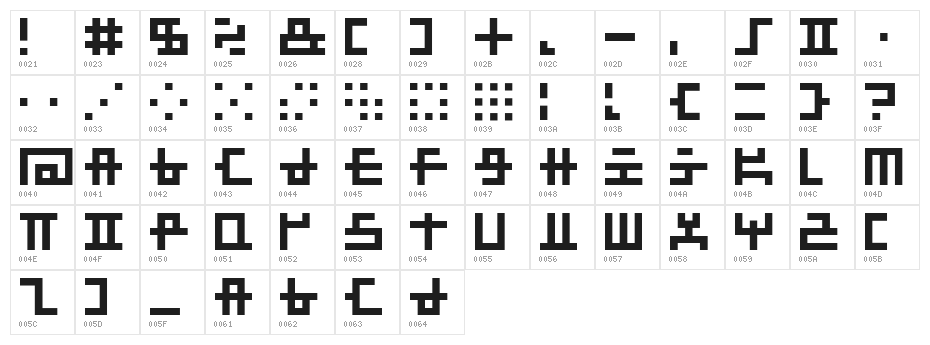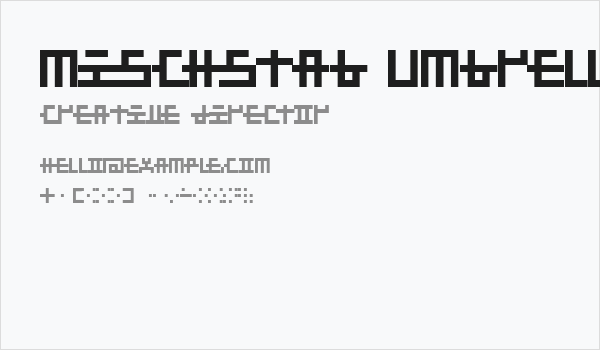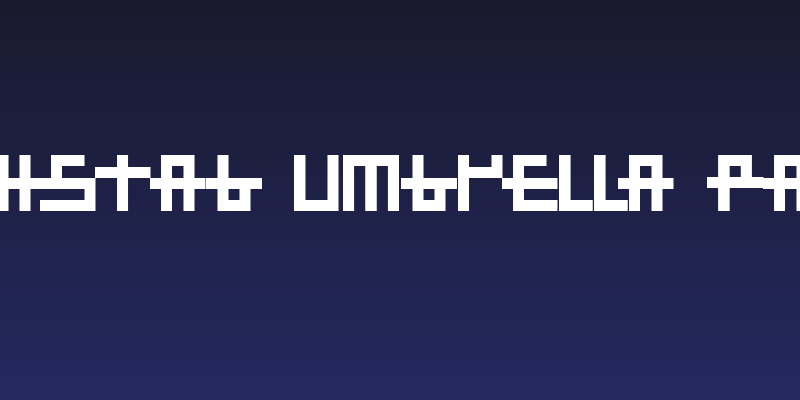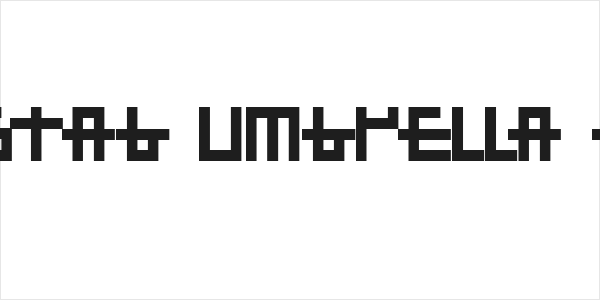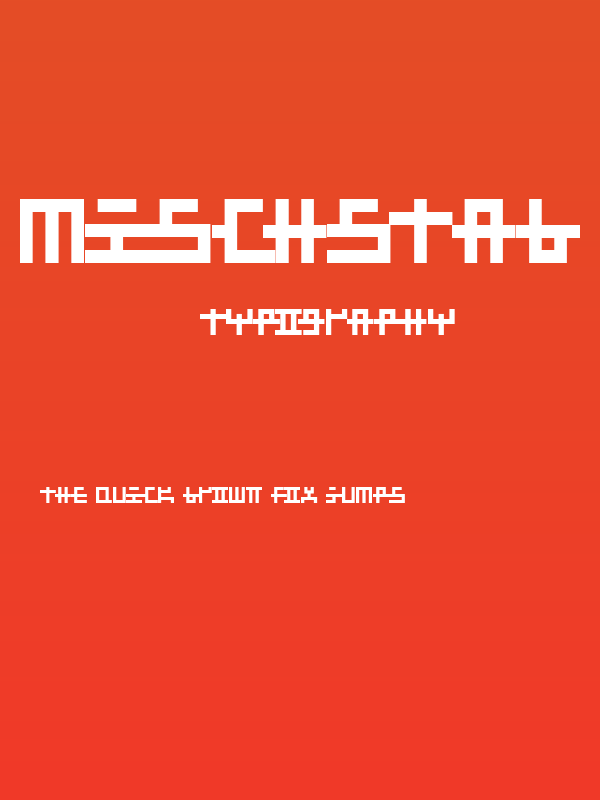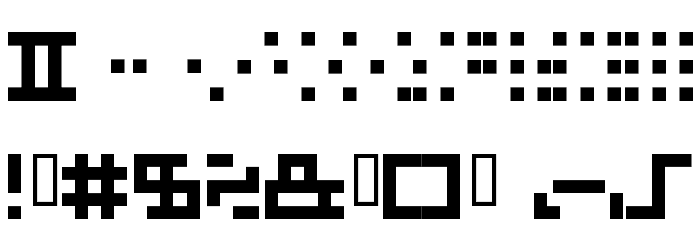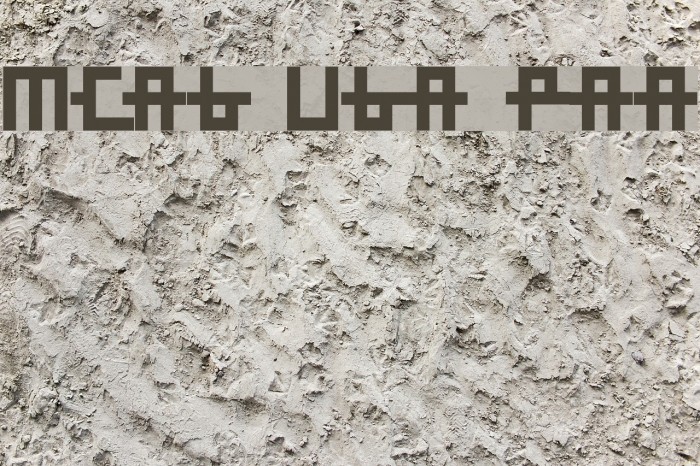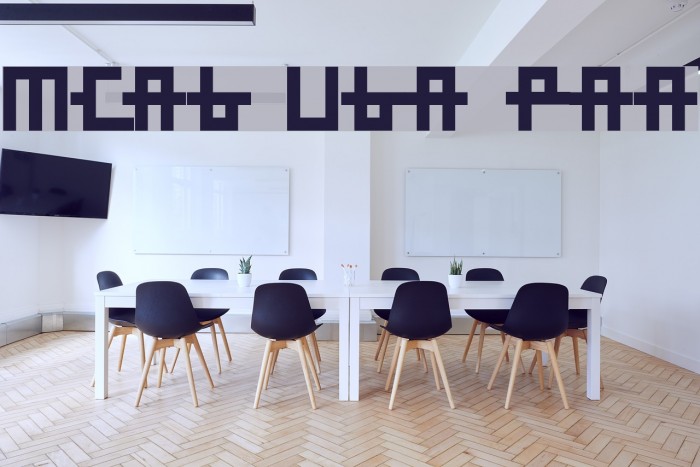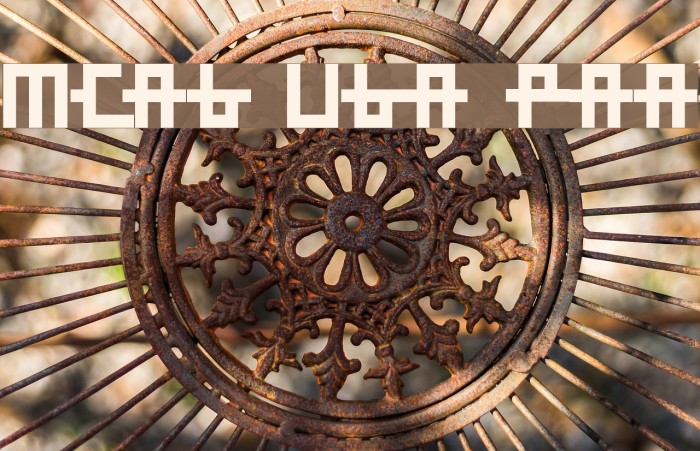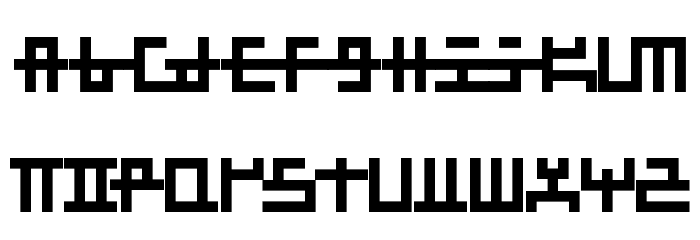
Mischstab Umbrella Patina Font
Mischstab Umbrella Patina Description
This font features a bold, geometric design with a distinct pixelated appearance. Each character is constructed with a grid-like structure, giving it a digital, retro aesthetic reminiscent of early computer graphics or arcade games. The uniformity in stroke width across all characters contributes to a cohesive and structured look. The uppercase and lowercase letters maintain a consistent height, enhancing the font's blocky and modular feel. Special characters and numbers follow the same design principles, ensuring visual harmony throughout the typeface.
| Overall Style | Retro, Digital |